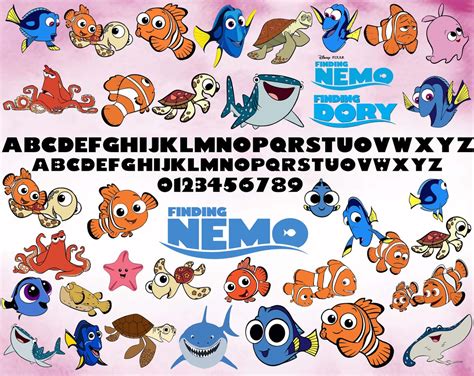
Finding Nemo Font Generator
Finding Nemo Font Generator. Web finding nemo text effect. Looking for finding nemo fonts?
Web create text graphics with the font from the 2003 animated film finding nemo, which is similar to findet nemo. Web create a text effect finding nemo with our online custom font generator. Looking for finding nemo fonts? Create a text effect finding nemo with our online custom font generator. Web lost fish by nubefonts. Web finding nemo text effect.
Looking for finding nemo fonts? Web finding nemo text effect. Web lost fish by nubefonts. Create a text effect finding nemo with our online custom font generator. Web create a text effect finding nemo with our online custom font generator. Web create text graphics with the font from the 2003 animated film finding nemo, which is similar to findet nemo.